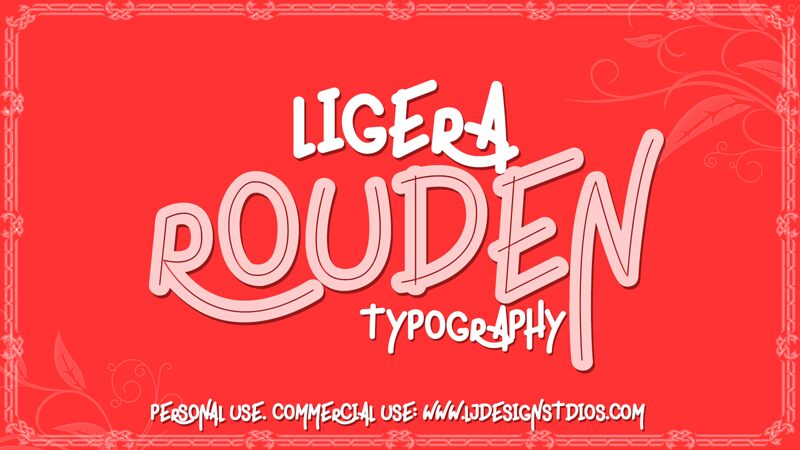
Ligera Rouden, a captivating handwritten font designed by Luis Jaramillo of LJ Design Studios, exudes a charming and organic aesthetic. This font's flowing, expressive strokes and unique character shapes evoke a sense of warmth and authenticity, making it an enchanting choice for a wide range of design projects.
Ligera Rouden's versatility shines through its ability to seamlessly integrate into diverse design contexts, from editorial layouts and packaging to branding and marketing materials. Its natural, handcrafted appearance lends an air of artisanal elegance, making it an ideal selection for projects that seek to convey a personal, handmade touch. Whether crafting heartfelt invitations, crafting captivating social media content, or designing engaging product labels, Ligera Rouden's distinctive style can elevate the visual impact and emotional resonance of any design.